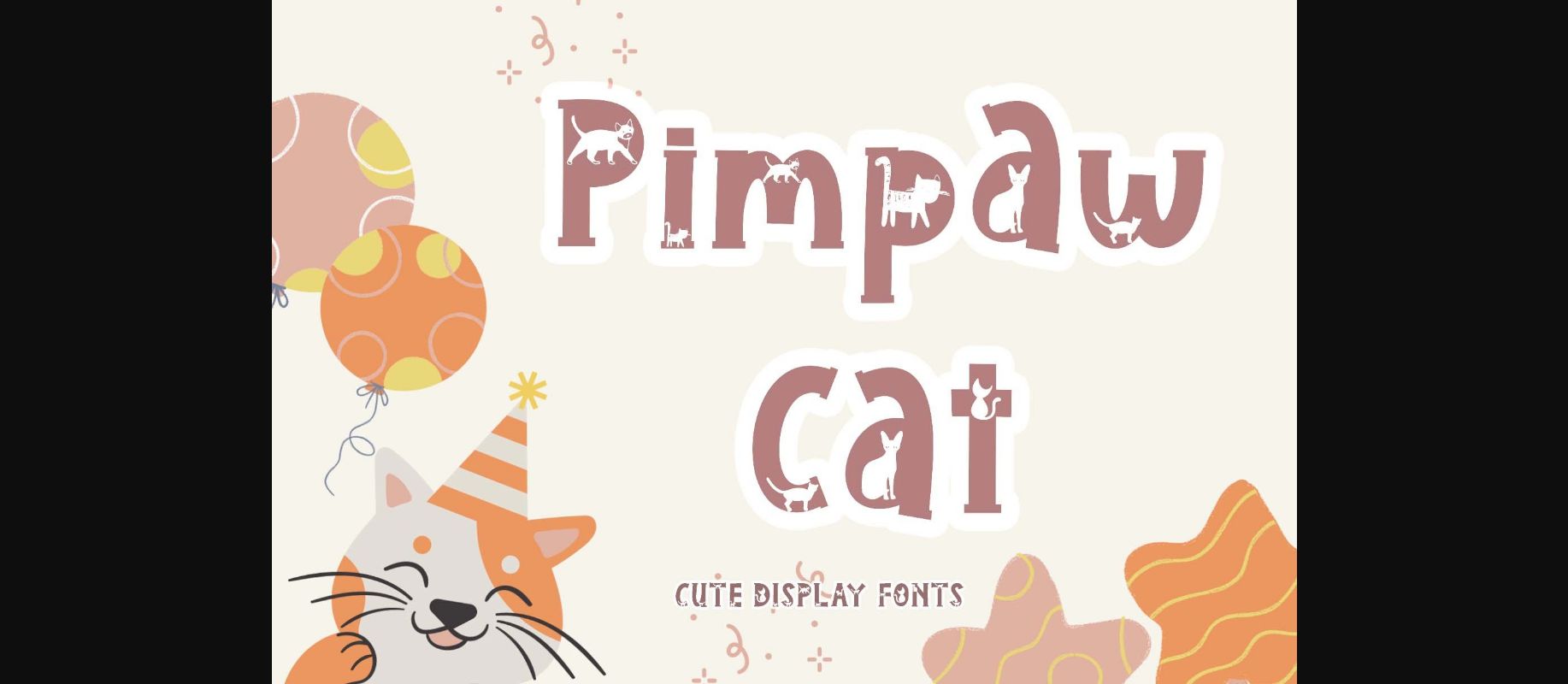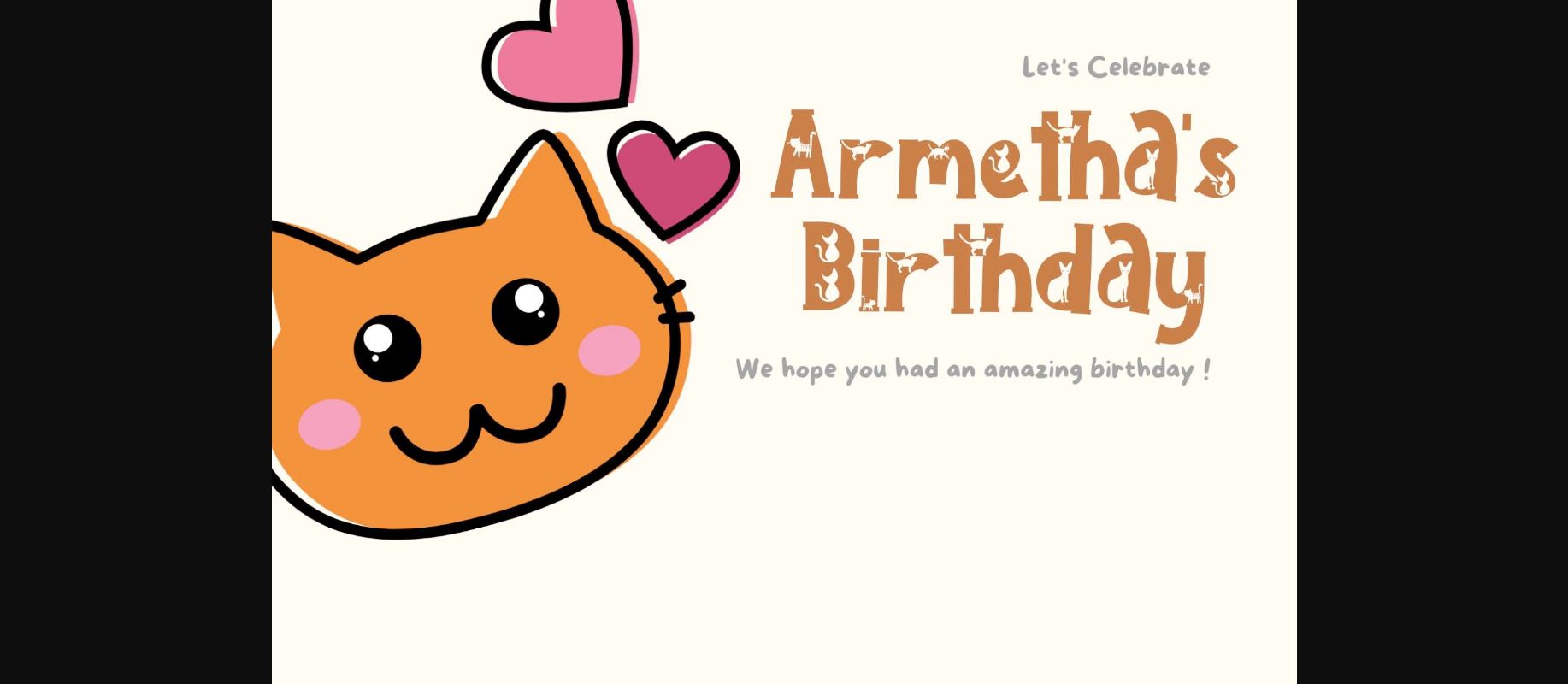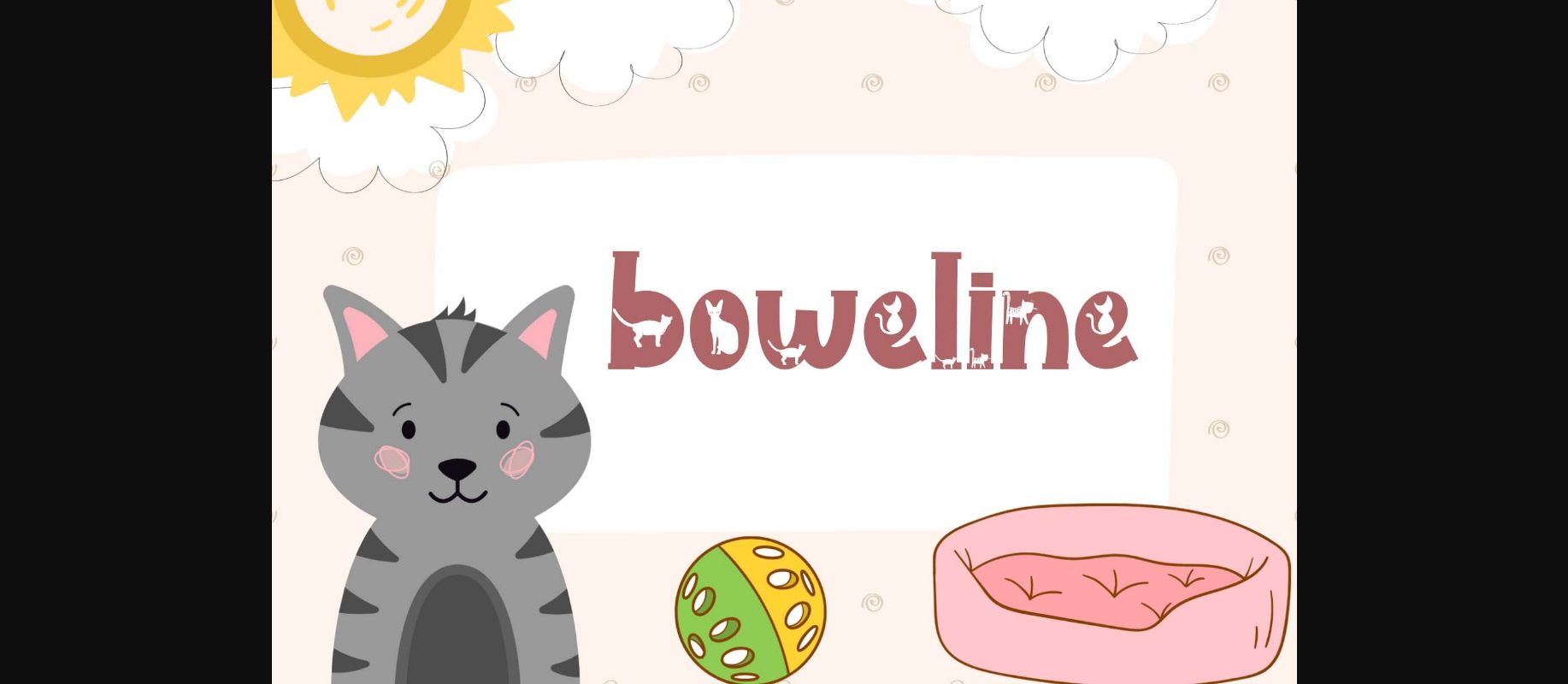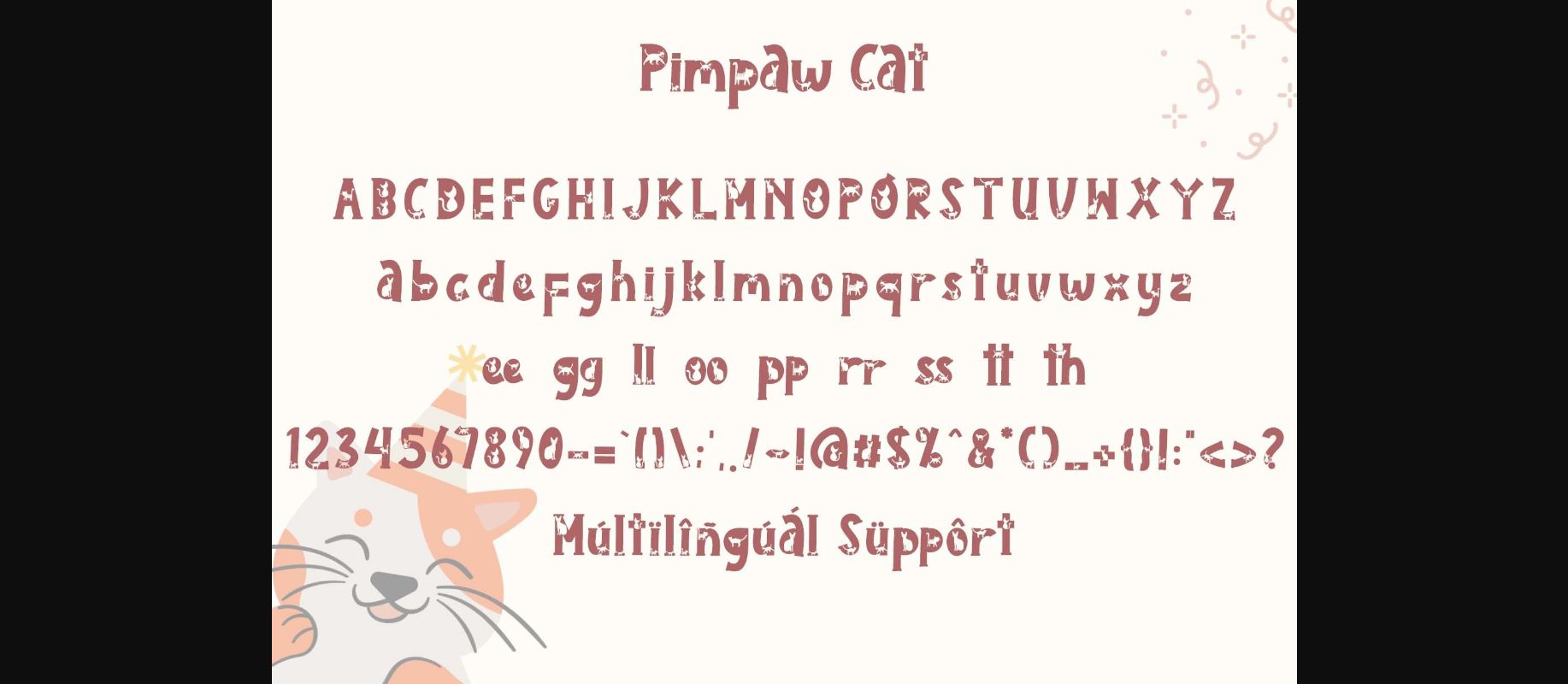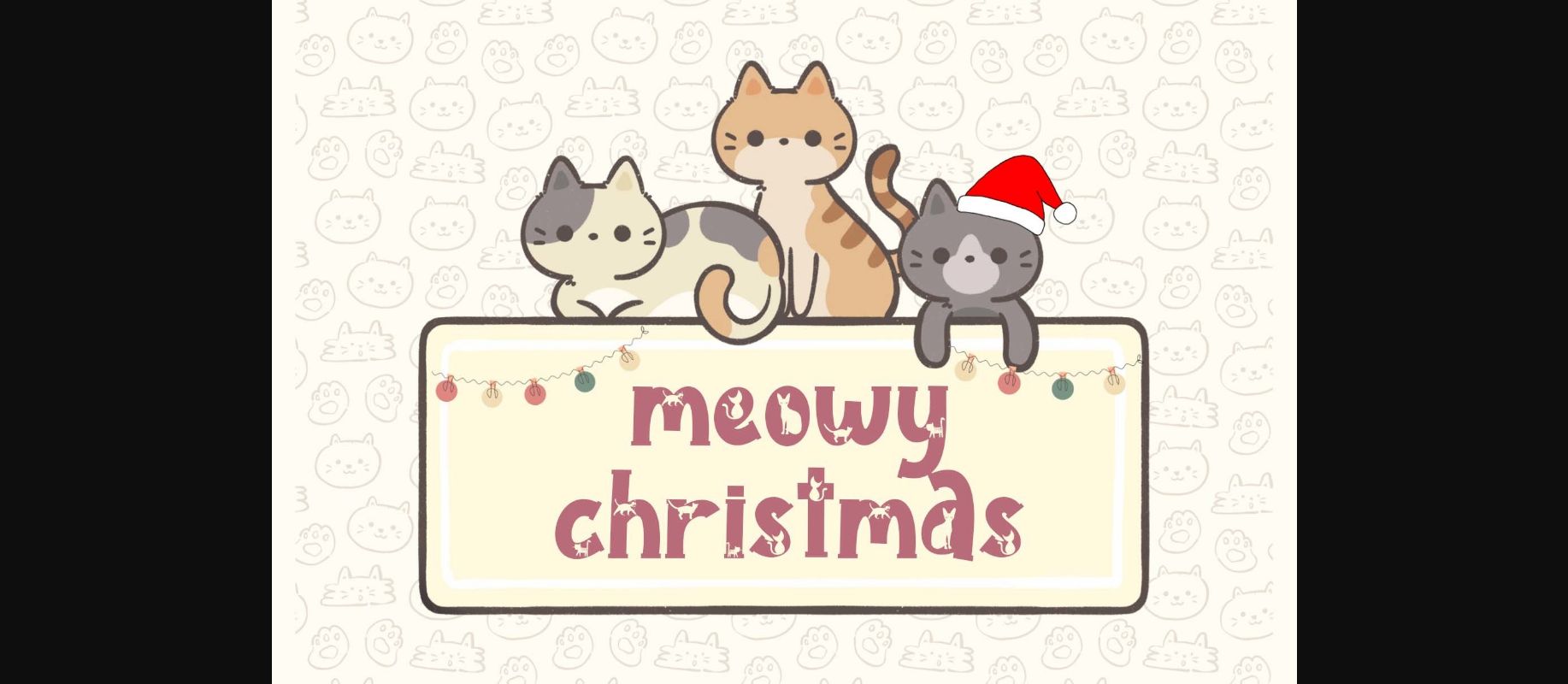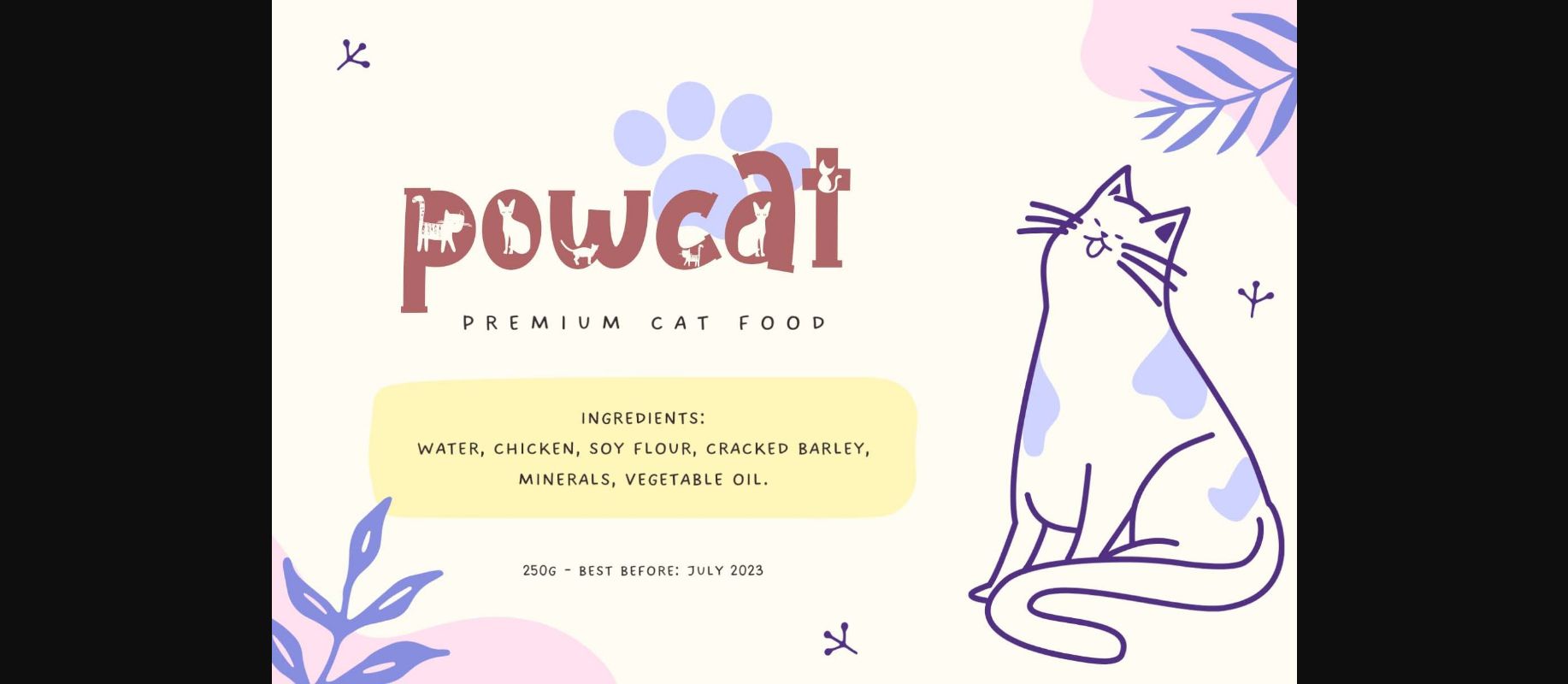
Pimpaw Cat Font
Pimpaw Cat is a unique and cute decorative display font. This font is decorated with different types of cat shapes. Equipped with uppercase, lowercase, ligatures, punctuations, numerals, and multilingual support it is suitable for posters, banners, prints, branding, stickers, magazine titles, film titles, and more.